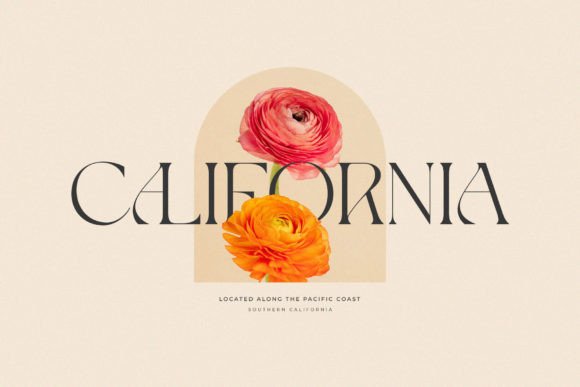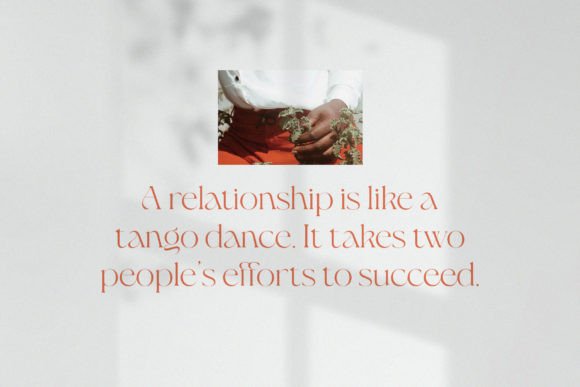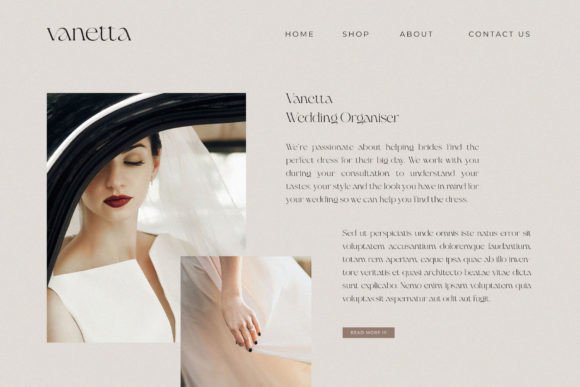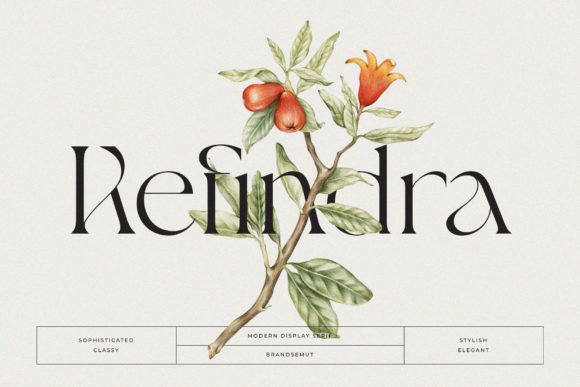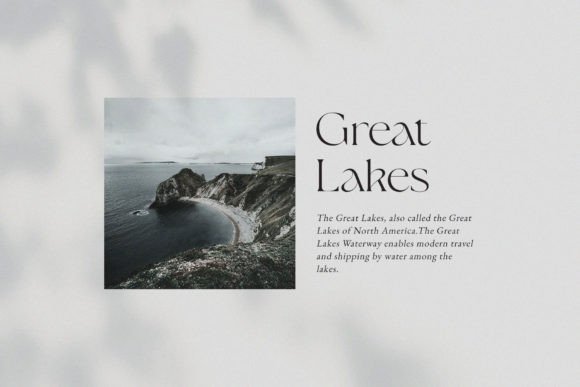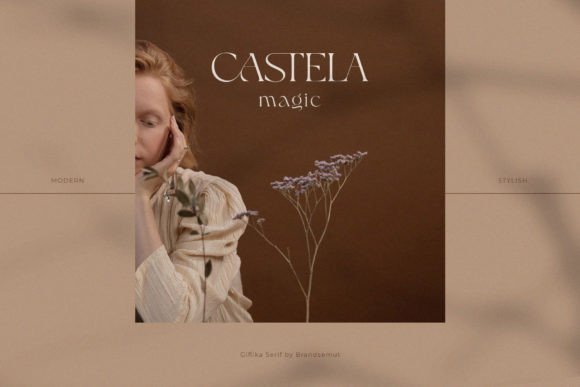
Giflika Font: Elevate Your Designs with Elegance and Sophistication
In the world of typography, fonts play a crucial role in conveying the tone and aesthetic of a design. For designers and crafters seeking to create stunning, feminine designs, Giflika Font is an exceptional choice. This exquisite serif font boasts a sophisticated, charming, and refined look, making it perfect for those who aim to add a touch of luxury to their work.
The Essence of Giflika Font
Giflika Font is characterized by its elegant, luxurious glyphs that exude a sense of refinement and poise. Its serif design adds a classic touch, reminiscent of traditional typography, while its unique flair brings a modern twist. This font is meticulously crafted to cater to the needs of designers who seek to create beautiful, high-end designs that capture the essence of femininity.
Key Features of Giflika Font
- Elegant Serif Design: Giflika’s serif design lends a sophisticated air to any project, making it suitable for luxury brands, high-end products, and elegant designs.
- Luxurious Glyphs: The font’s glyphs are designed to add a touch of luxury to your designs. Each character is crafted with precision to ensure that your text stands out with elegance and refinement.
- Feminine Appeal: Giflika Font is perfect for creating designs that require a feminine touch. Its charming and refined look makes it an excellent choice for brands and projects targeting a female audience.
- Versatility: This font is versatile and can be used across various design projects, including branding, packaging, advertising, and more.
Applications of Giflika Font
Giflika Font’s versatility makes it suitable for a wide range of applications. Here are some of the ways you can utilize this exquisite font:
- Branding and Logo Design: Create a lasting impression with a sophisticated logo that embodies your brand’s elegance and luxury.
- Packaging Design: Elevate your product packaging with a font that communicates luxury and high-end quality.
- Advertising and Marketing Materials: Use Giflika Font to create visually stunning ads and marketing materials that capture the attention of your target audience.
- Stationery and Editorial Design: Add a touch of elegance to your stationery, magazines, and editorial projects with this refined font.
Why Choose Giflika Font?
In a sea of fonts, Giflika stands out for its unique blend of sophistication, charm, and elegance. Here are some reasons why designers and crafters prefer Giflika Font:
- Unique Design: Giflika Font offers a distinctive look that sets it apart from other serif fonts.
- High Readability: The font is designed to be highly readable, making it perfect for both headings and body text.
- Easy to Pair: Giflika Font pairs well with a variety of fonts, allowing you to create stunning typography combinations.
Giflika Font is a valuable addition to any designer’s toolkit. Its elegant, luxurious glyphs and sophisticated look make it an ideal choice for creating gorgeous, feminine designs. Whether you’re working on branding, packaging, advertising, or editorial projects, Giflika Font is sure to elevate your designs to new heights. With its versatility, readability, and unique flair, Giflika Font is poised to become your go-to font for all your design needs.